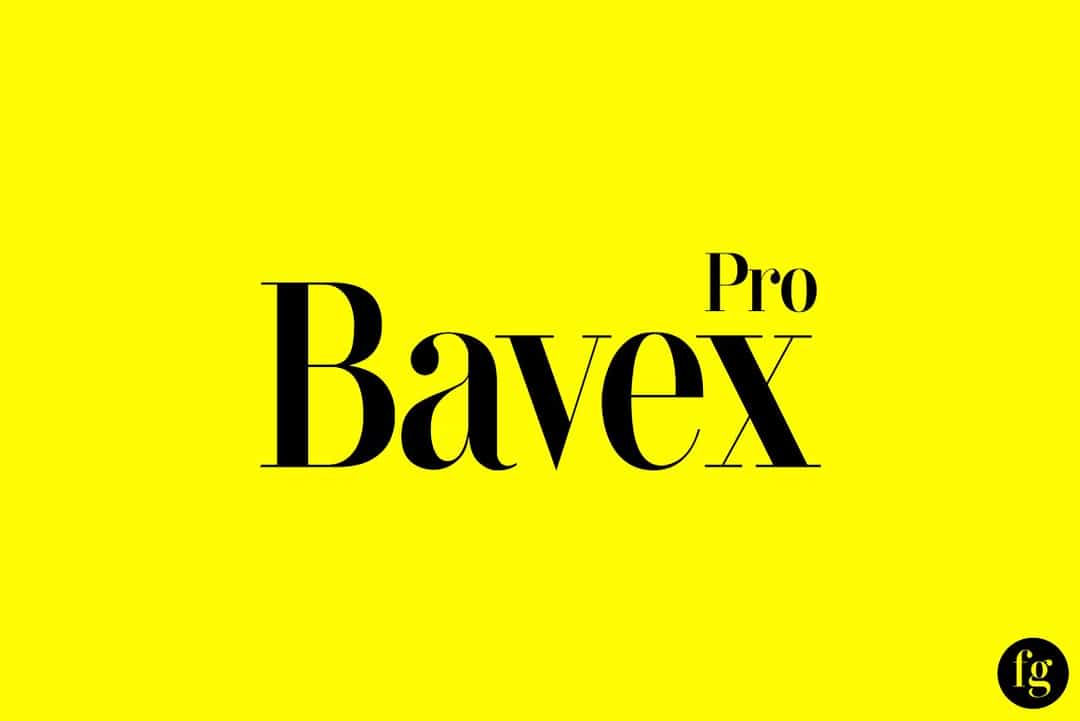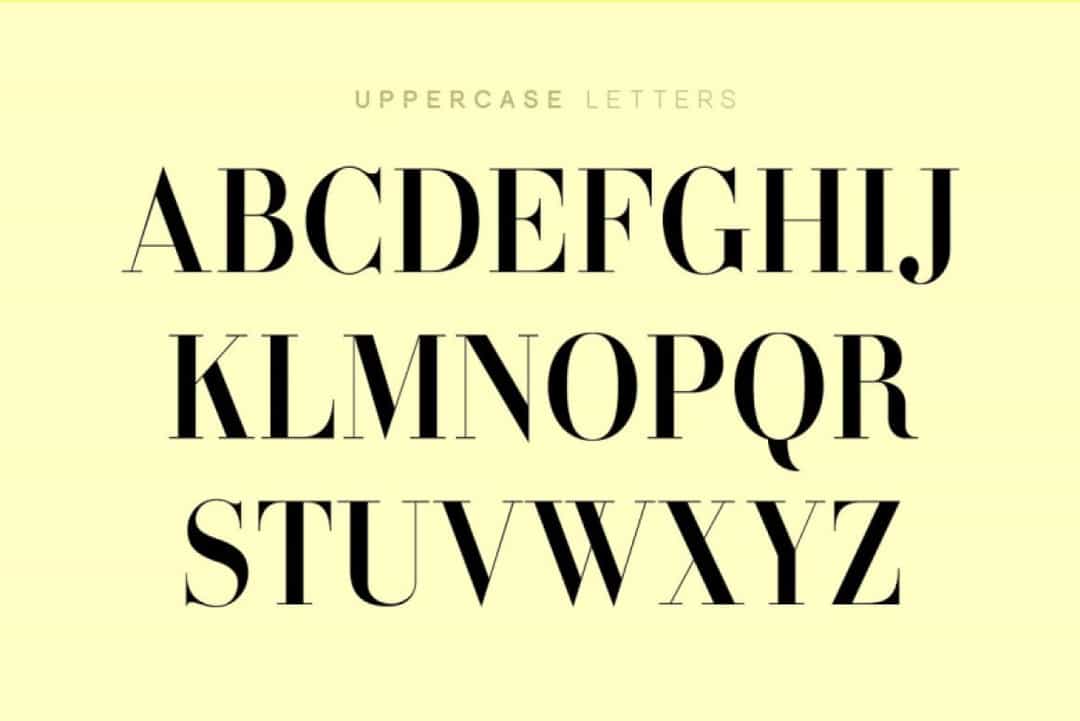
Bavex is a classic and slightly curved serif font. Its striking look makes it perfect for headers. This font family includes all Latin characters, numbers, special characters, and punctuation. Bavex will be great for projects such as: logos, greeting cards, posters, packaging and so much more!